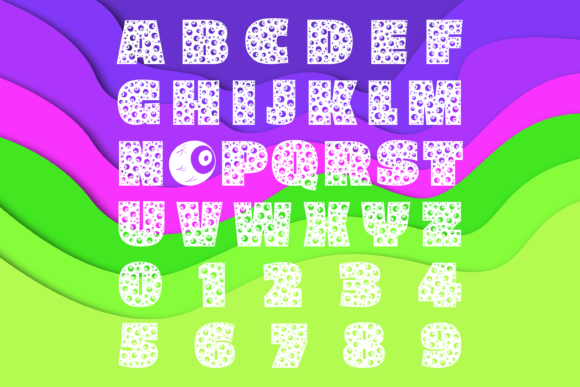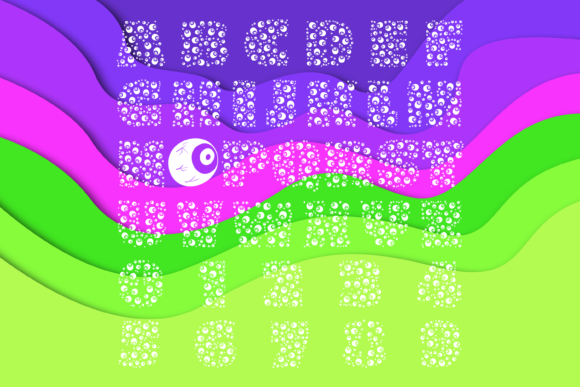
Eye Balls Duo Font: The Creepiest Addition to Your Halloween Designs
Are you looking for a font that will make your Halloween designs stand out from the crowd? Look no further than the Eye Balls Duo Font. This incredibly creepy and spooky decorative font is sure to add a touch of eeriness to any design. In this article, we’ll dive into the details of the Eye Balls Duo Font, its features, and how you can use it to take your Halloween designs to the next level.
What is Eye Balls Duo Font?
Eye Balls Duo Font is a unique and terrifying font that features, you guessed it, eye balls! The font is designed to resemble creepy, staring eyes that seem to follow you everywhere. It’s the perfect addition to any Halloween design, from party invitations to social media graphics, and even DIY crafts.
Features of Eye Balls Duo Font
So, what makes Eye Balls Duo Font so special? Here are just a few of its standout features:
- Creepy and Spooky Design: The font features a design that’s sure to send chills down the spine. The eye balls are intricately designed to look like they’re staring right through you.
- Versatile: Eye Balls Duo Font can be used for a wide range of designs, from digital graphics to print materials.
- High-Quality: The font is made up of high-quality graphics that are sure to look great in any design.
Ideas for Using Eye Balls Duo Font
Now that you have Eye Balls Duo Font, what can you do with it? Here are a few ideas to get you started:
- Halloween Party Invitations: Create spooky party invitations that will set the tone for a creepy Halloween party.
- Social Media Graphics: Use Eye Balls Duo Font to create social media graphics that will grab attention and drive engagement.
- DIY Crafts: Add a touch of creepiness to your DIY crafts, such as Halloween decorations or gift tags.
- Haunted House Signs: Create signs for a haunted house or haunted attraction that will send chills down the spine.